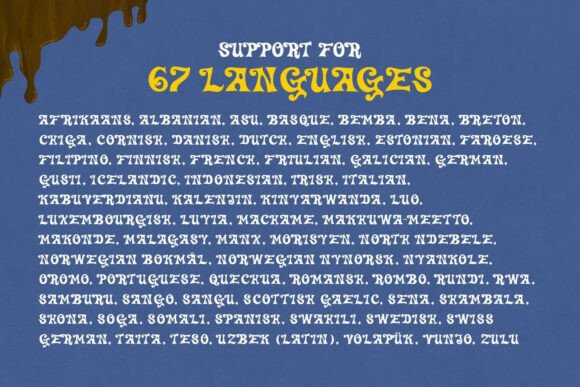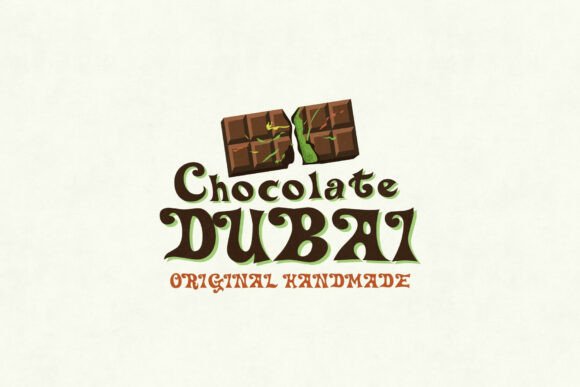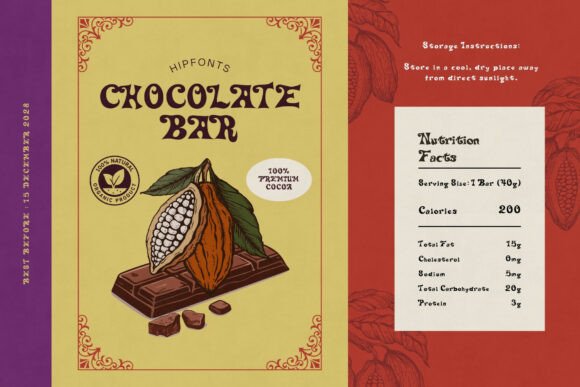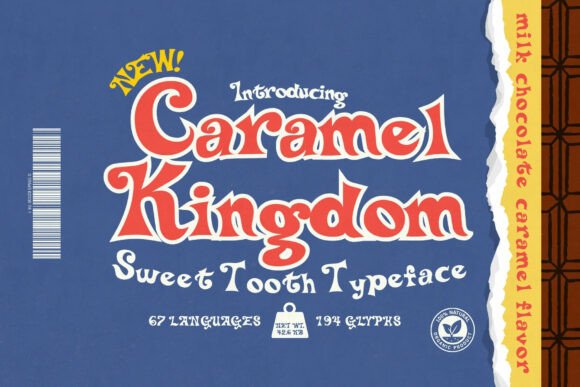
Welcome to the Whimsical World of Caramel Kingdom Font
Have you ever been in the middle of a design project, and suddenly, it feels like something’s missing? You’re not quite sure what it is, but you know it’s not quite right. I recall a recent experience where I was working on a branding project for a new candy store. The logo, the colors, everything was perfect, but the font just didn’t have that special something. That’s when I stumbled upon the Caramel Kingdom font, and it was love at first sight! ✨
A Font that Tells a Story
Caramel Kingdom is more than just a font; it’s an experience. This whimsical and lively serif display font infuses every design with a sense of magic, charm, and fun. Its playful yet polished letterforms are perfect for candy, chocolate, and sweets branding, as well as packaging, promotional materials, and anything that needs a touch of delicious personality. The bold curves and expressive style also make it an excellent choice for children’s books, posters, creative ads, and more—guaranteeing your project stands out with style and imagination.
• ✨ The whimsical and lively feel that adds a touch of magic to any design
• ✅ The playful yet polished letterforms that are perfect for candy, chocolate, and sweets branding
• ✅ The support for 67 languages, making it a versatile choice for global designs
• ✅ The 194 carefully crafted glyphs that offer a wide range of creative possibilities
While Caramel Kingdom is an amazing font, there are a few things to keep in mind. ⚠️ Some users have noted that the font can be a bit tricky to read in smaller sizes, so it’s best to use it for display purposes or larger text. Additionally, while the font has a wide range of glyphs, some users may find that certain characters or symbols are not available.
The Backstory of Caramel Kingdom
The story behind Caramel Kingdom is one of creativity and inspiration. The font’s designer was inspired by the whimsical world of candy and sweets, and wanted to create a font that captured the magic and charm of this world. The result is a font that’s both playful and polished, with a unique personality that’s sure to stand out.
Q: What is Caramel Kingdom font?
A: Caramel Kingdom is a whimsical and lively serif display font that’s perfect for candy, chocolate, and sweets branding, as well as packaging, promotional materials, and more.
Q: What languages does Caramel Kingdom support?
A: Caramel Kingdom supports 67 languages, making it a versatile choice for global designs.